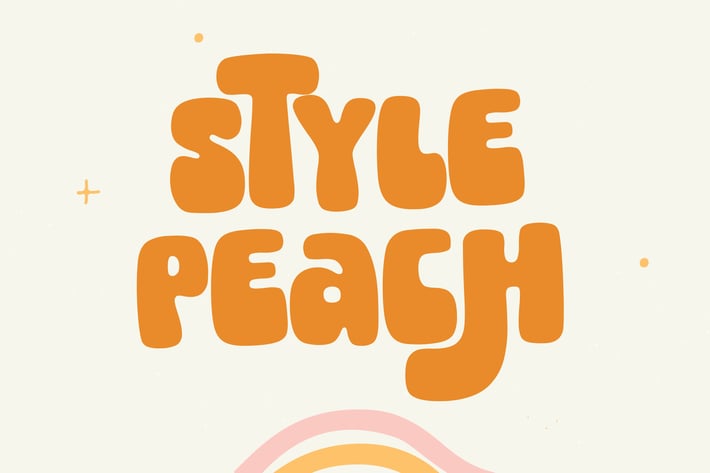
Style Peach Font
Style Peach is a bold retro sans serif fonts that feels playful an incredible modern retro aesthetic. This font is made by carrying the concept of chubby and cute style, so it is perfect and suitable for application in any project like a logo or brand identity and packaging design projects with retro vibes. Comes with a full uppercase, lowercase, numbers, punctuation and with extensive language support, itβs going to be a very usable addition to your project. Masterfully designed to become a true favorite, this font has the potential to bring each of your creative ideas to the highest level.
Numbers & Punctuation
Alternate